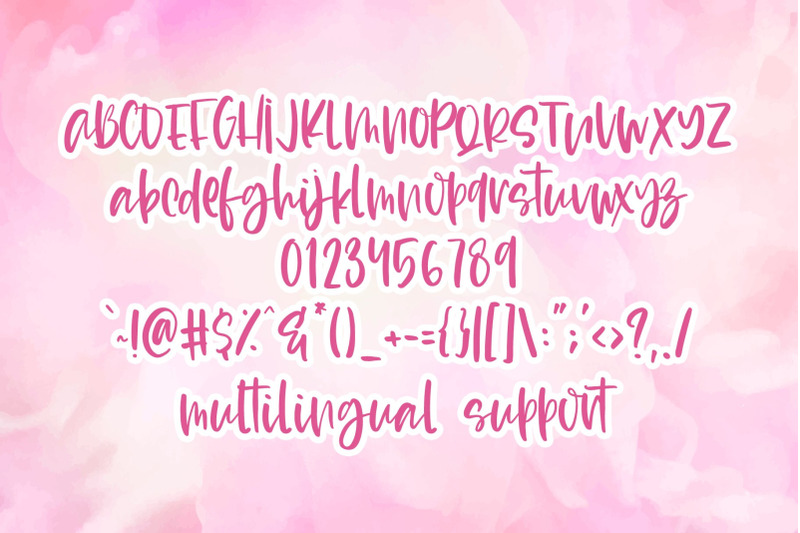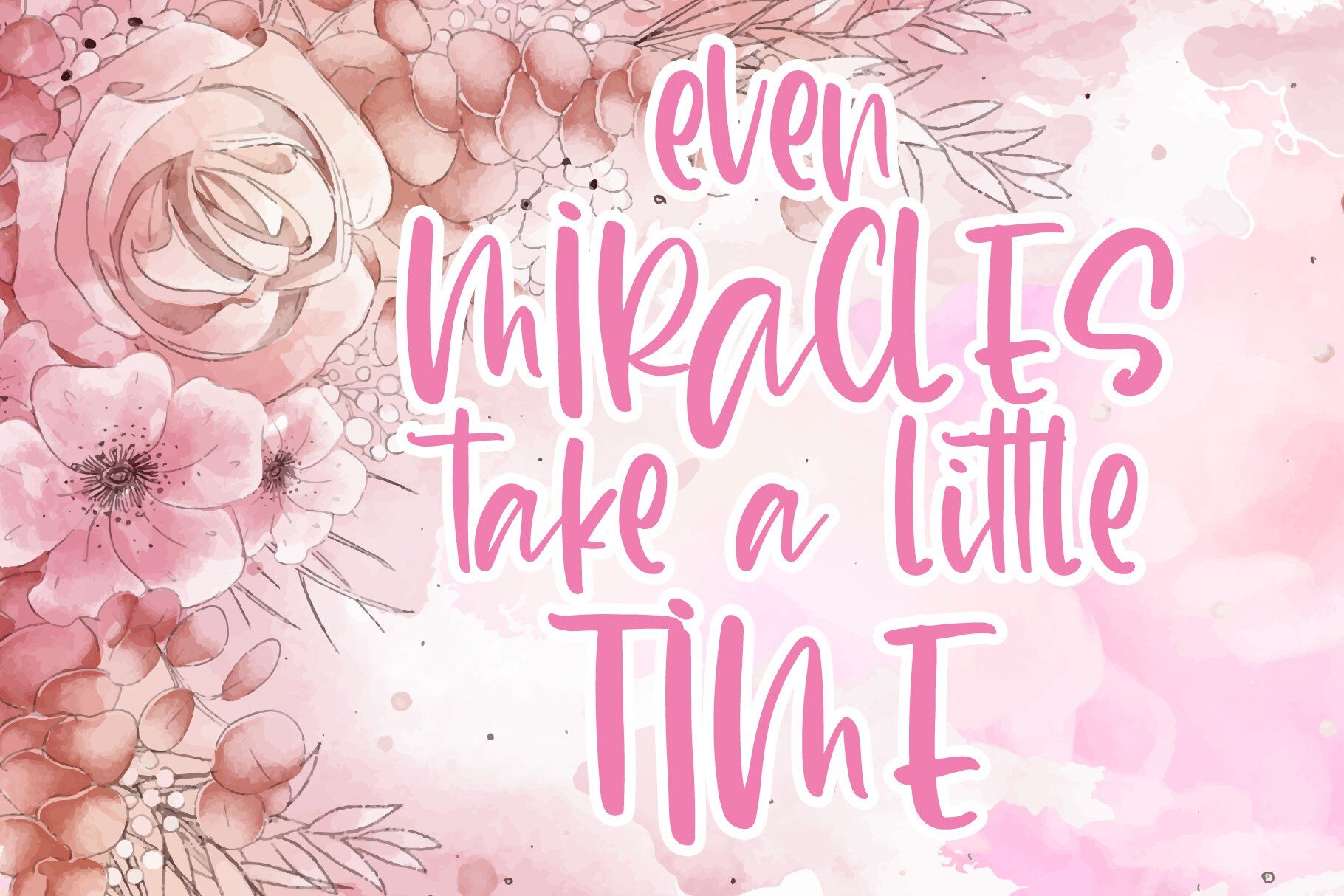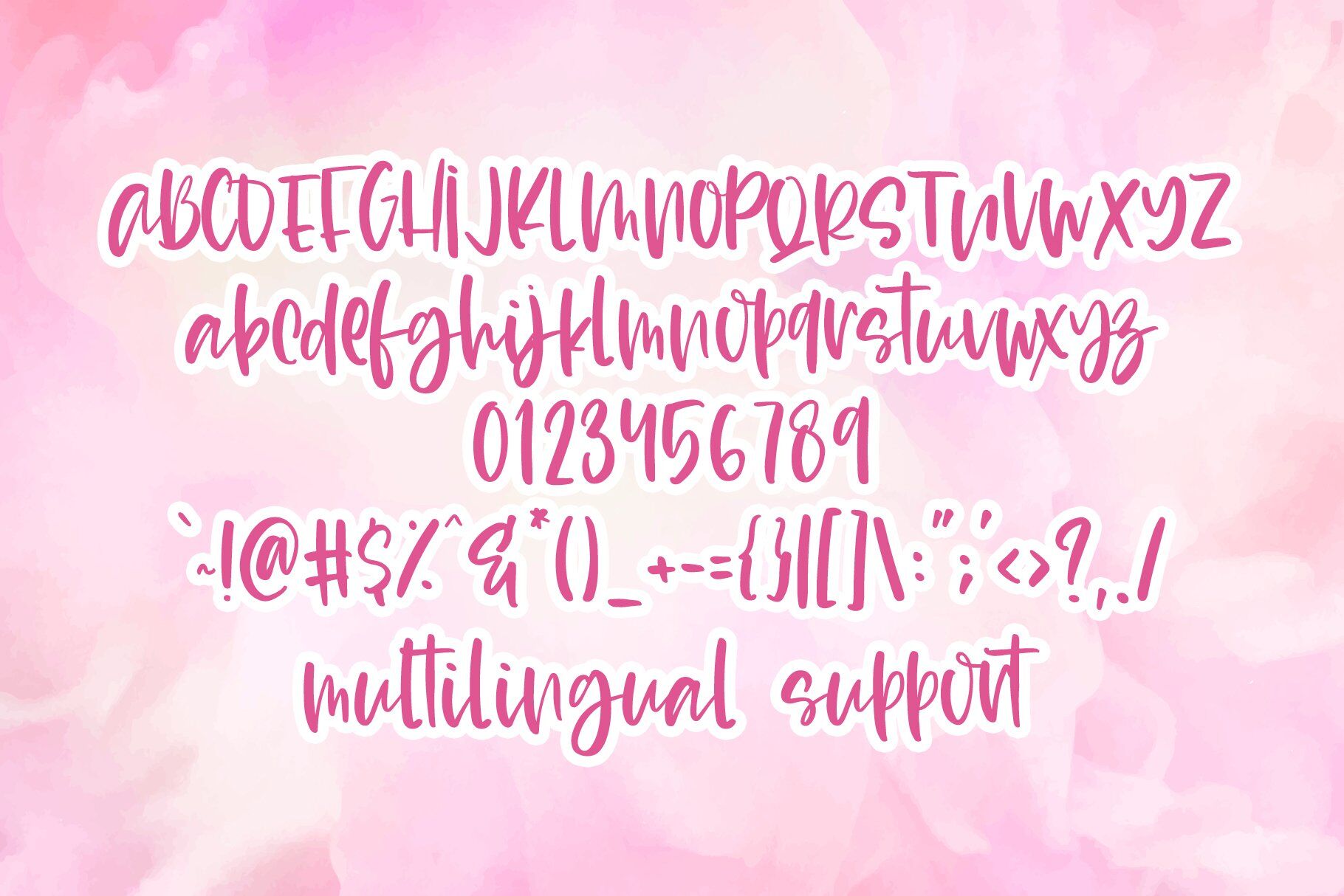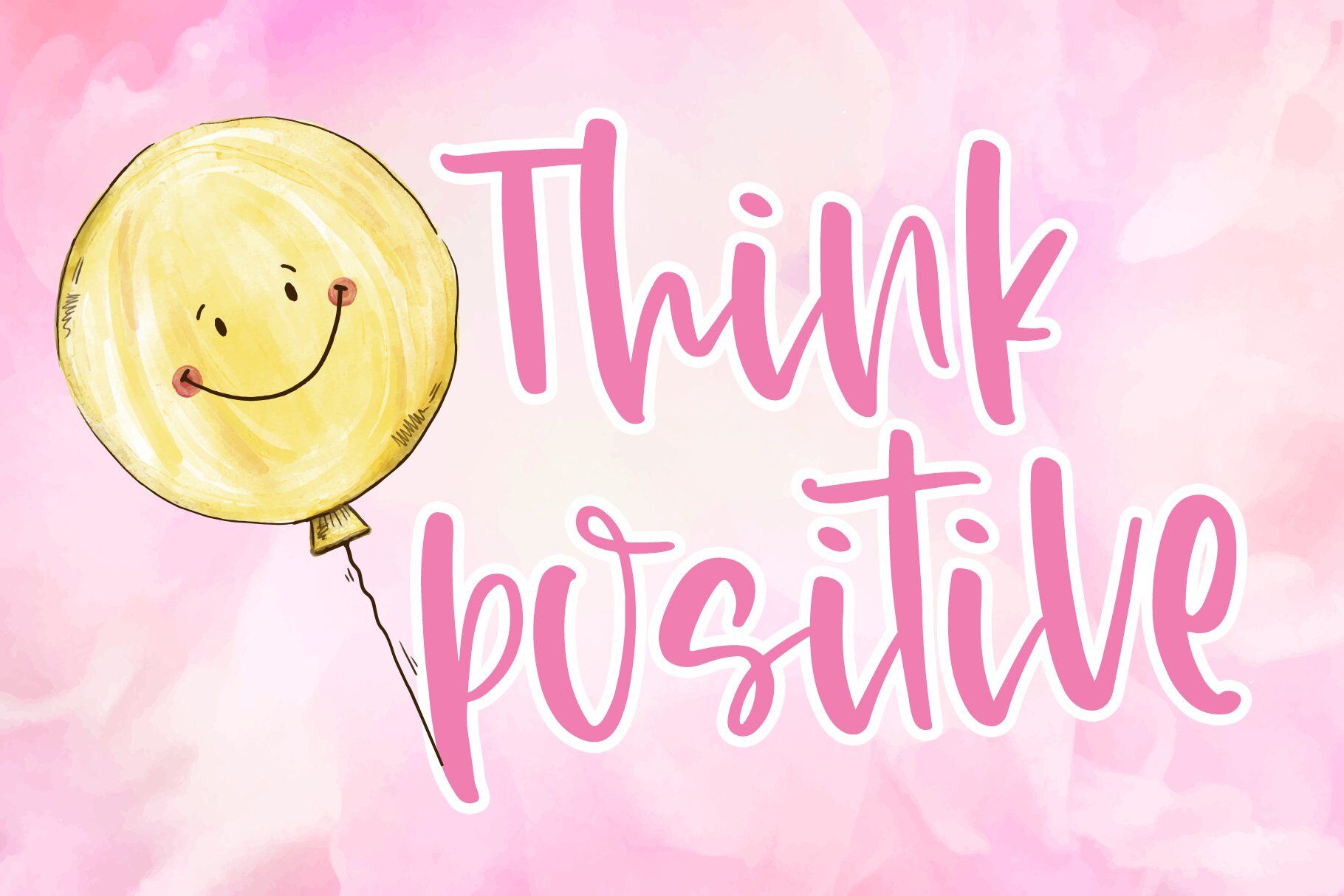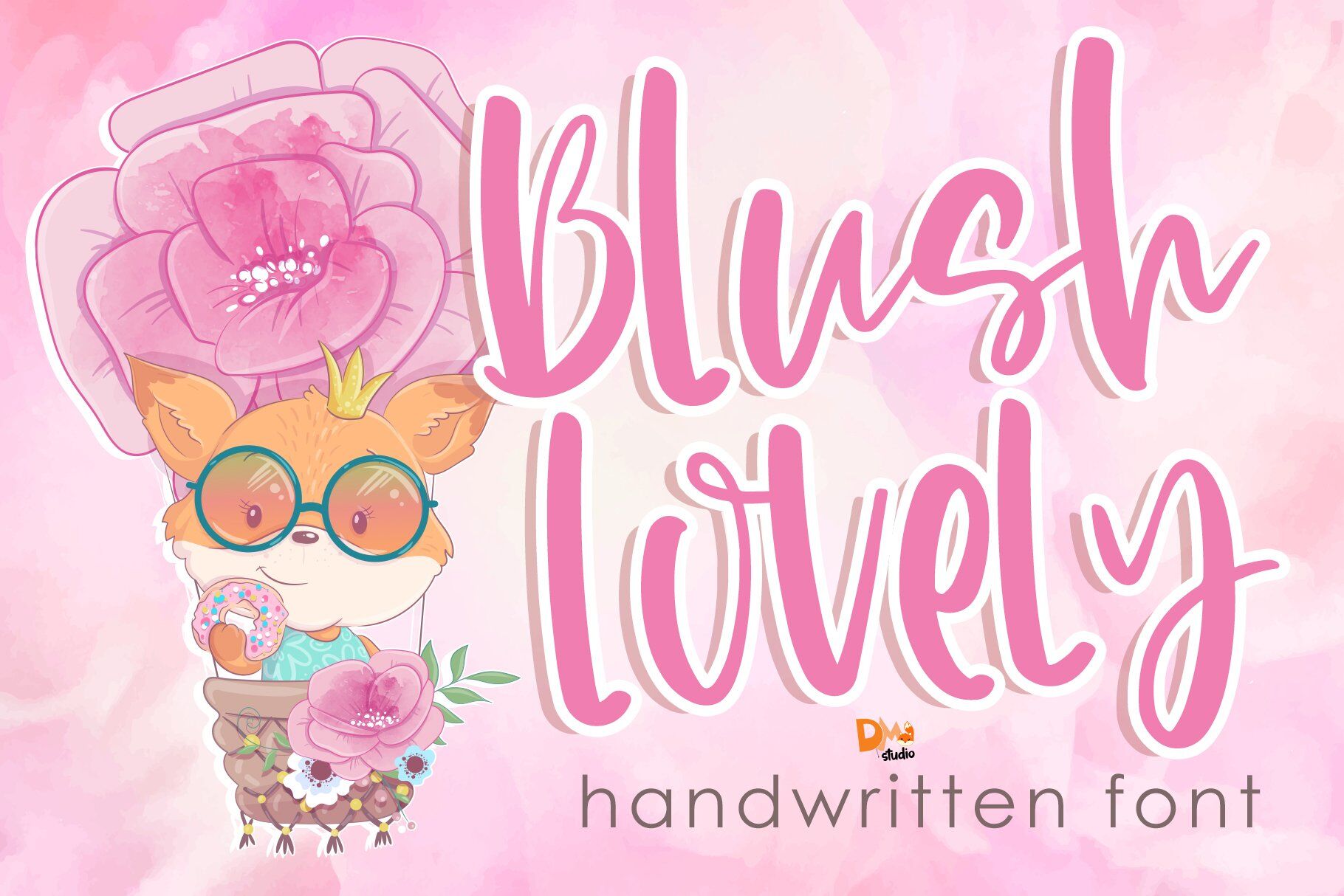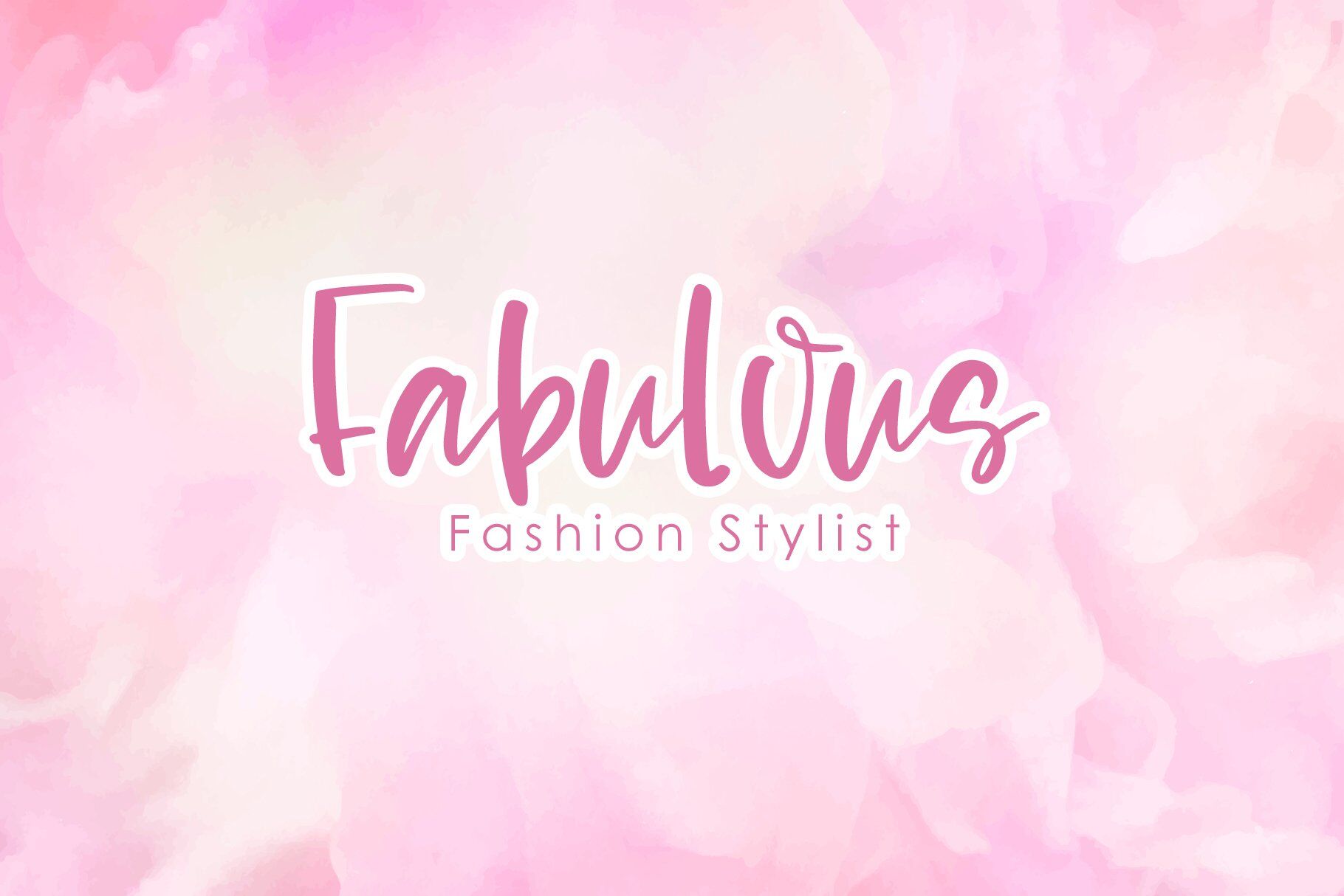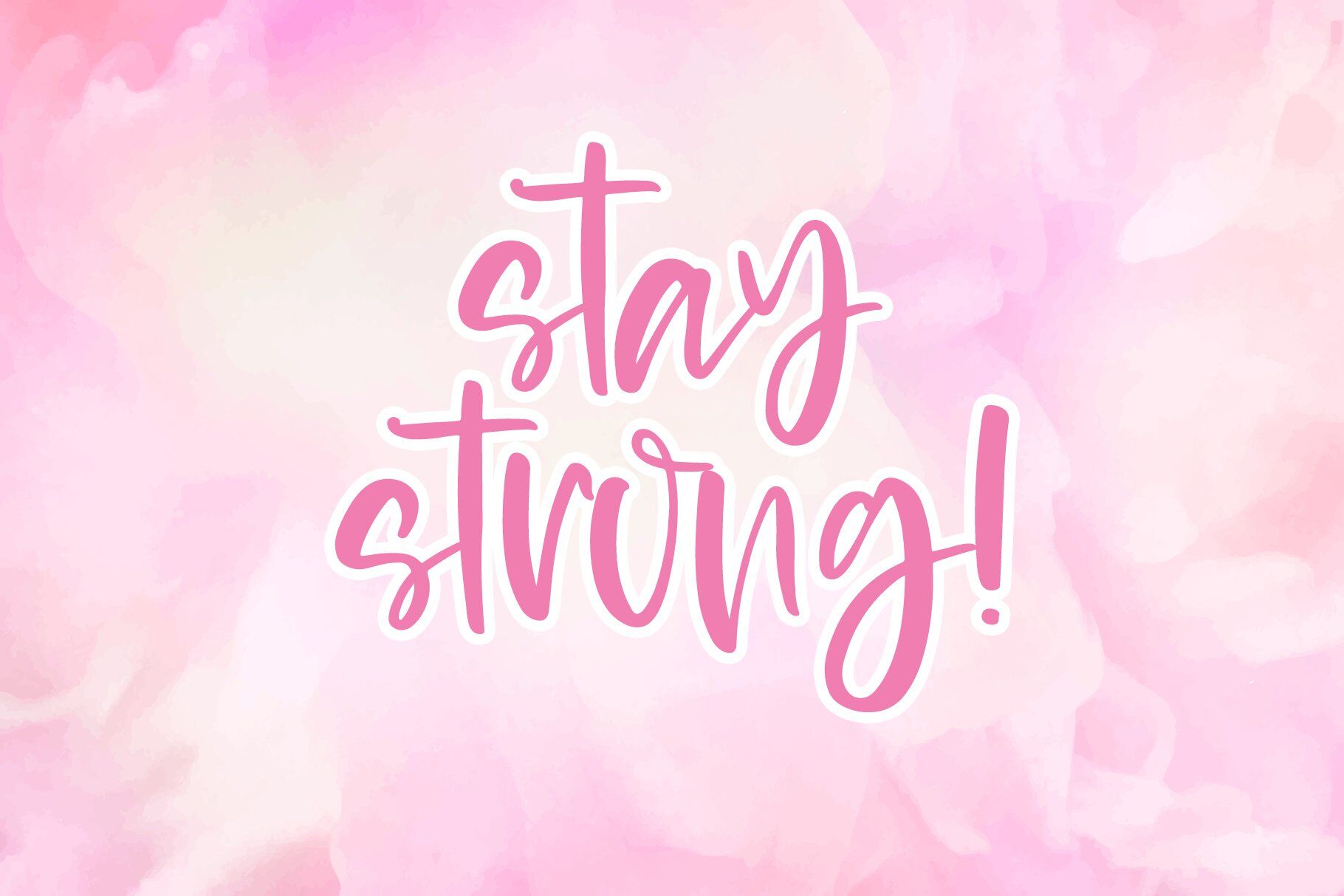
Blush Lovely Handwritten Font
Blush Lovely – Handwritten Font Blush Lovely is a sweet and elegant handwritten font that exudes warmth and charm. Its soft curves and graceful letterforms make it a perfect choice for romantic themes, branding, feminine logos, wedding invitations, and heartfelt quotes. Whether you're designing for love notes or boutique packaging, this font adds a lovely personal touch.   Features: Elegant Handwritten Style: Fluid strokes and soft terminals for a refined yet casual appearance. Versatile Application: Suitable for branding, social media, stationery, and personal projects. Smooth and Readable: Balanced spacing and legibility across styles and sizes. Heartwarming Personality: Great for romantic and feel-good visual projects.   File Formats: OTF (OpenType Font) TTF (TrueType Font) WOFF1 (Web Font Format 1) WOFF2 (Web Font Format 2)